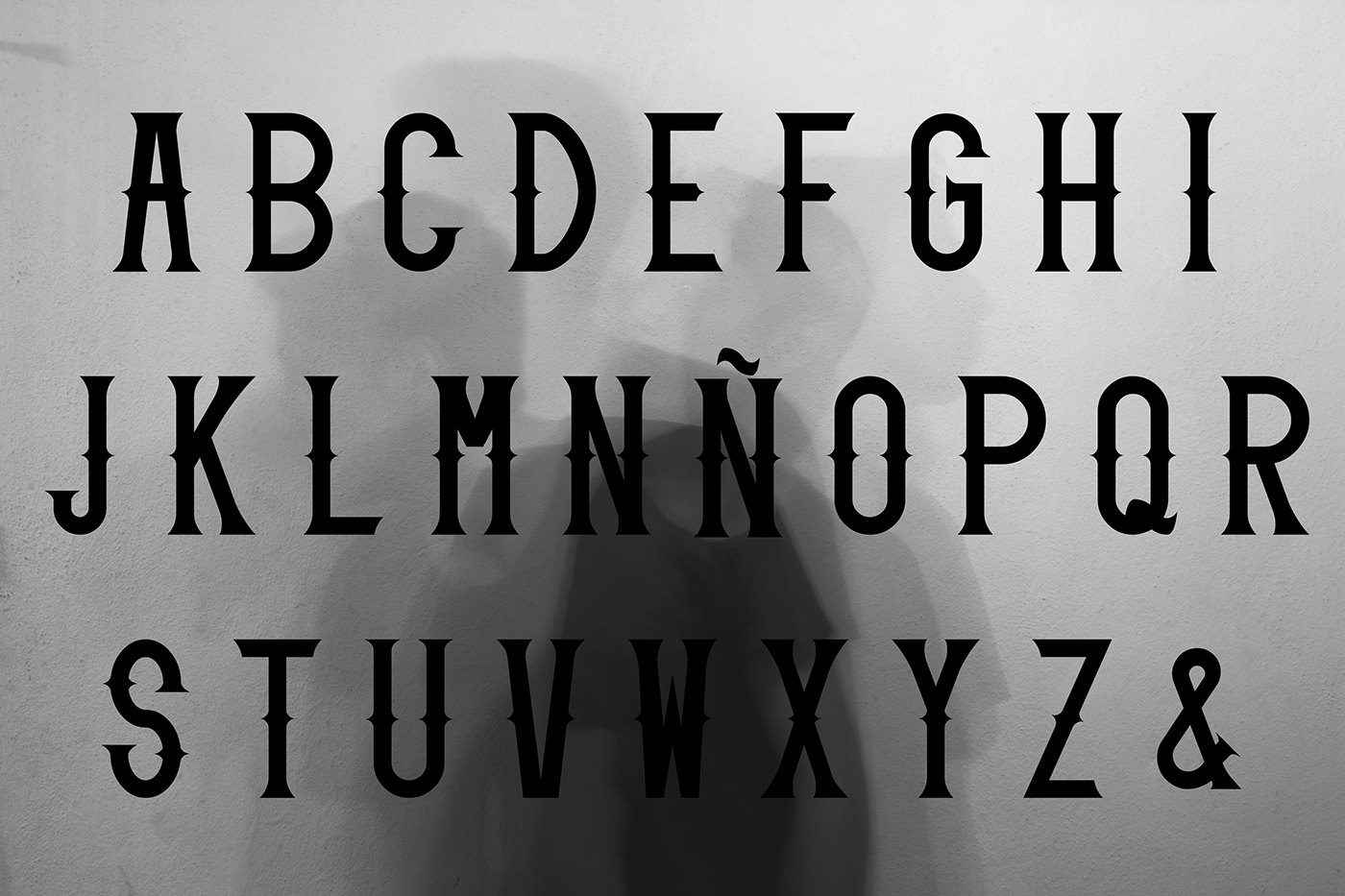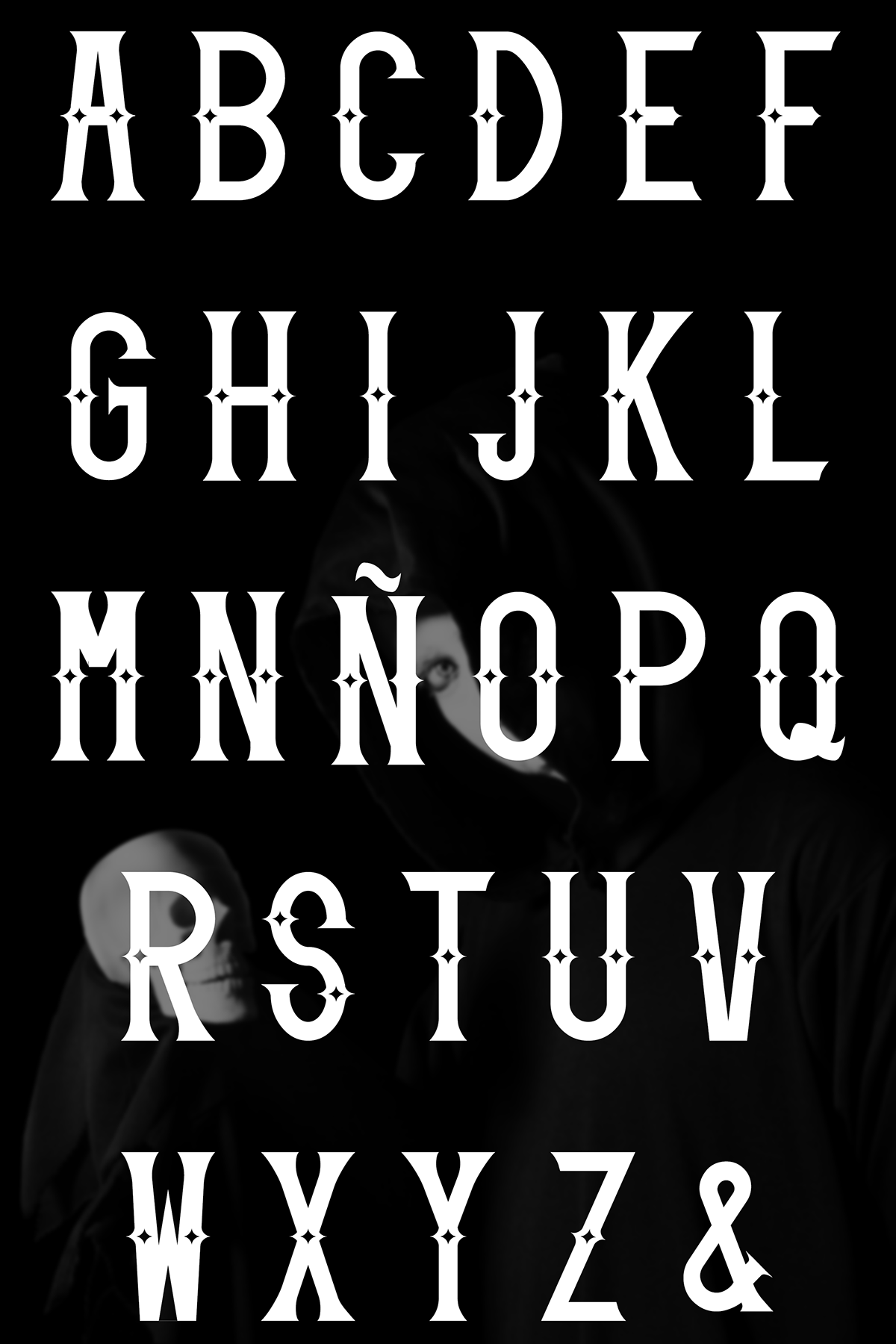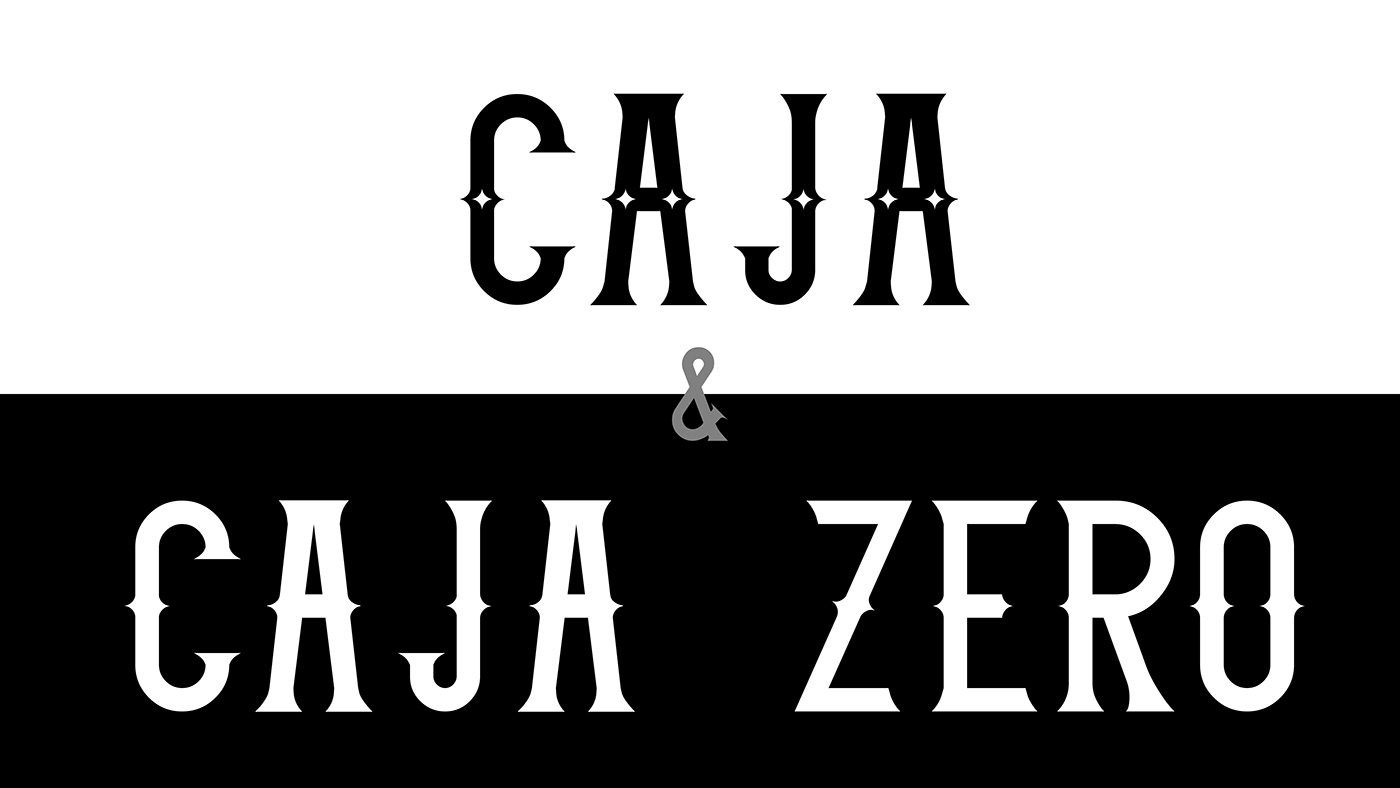
Caja Font
Caja-font is a free uppercase font with a vintage and stylish flavour. Designed and released by Geovanny Gavilanes, a young designer based in Ecuador.